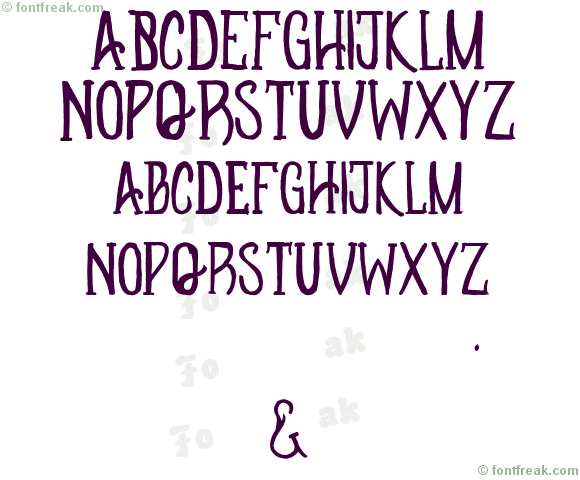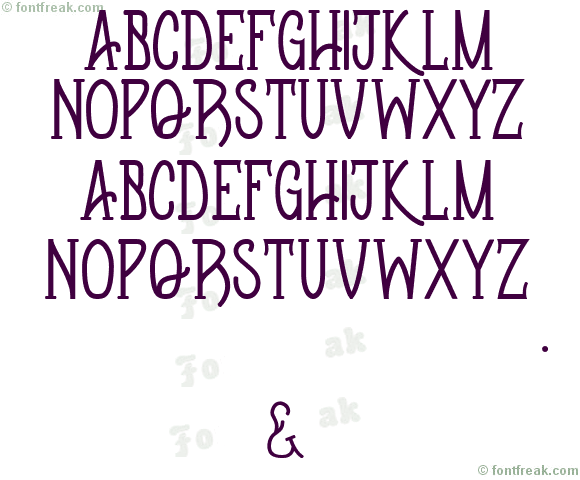
Apotheque Hand
Apotheque Regular
About Apotheque Hand
Apotheque Hand by Fie Clarke is a captivating handwritten font that brings a personal touch to any design project. As a display typeface, it offers a unique blend of charm and legibility, making it ideal for a wide range of applications. The font features a medium stroke weight with a slight contrast, allowing for clear readability while maintaining its artistic flair. The spacing is well-balanced, ensuring that each character stands out without losing cohesion. Notably, Apotheque Hand incorporates whimsical, decorative elements that give it a playful yet sophisticated appearance.
This font shines in various use cases, particularly in wedding invitations where its romantic style can set the perfect tone. It is also a fantastic choice for crafting eye-catching movie posters, as the unique characteristics of the font can draw in viewers. Additionally, Apotheque Hand works well for restaurant menus, adding a touch of elegance that can enhance the dining experience. Content creators looking to add personality to their blogs or social media posts will find this font to be an excellent asset. Small business owners can utilize this typeface to create memorable branding materials that resonate with their audience.
The target audience for Apotheque Hand includes graphic designers seeking distinctive typefaces, small business owners who want to elevate their marketing materials, and content creators aiming for a more personalized aesthetic. The Apotheque Hand font free download allows users to experiment with this versatile typeface without financial constraints, making it accessible for personal and private use. What truly sets Apotheque Hand apart is its ability to combine artistic flair with functionality, ensuring that your designs not only stand out but also convey the intended message with warmth and creativity.